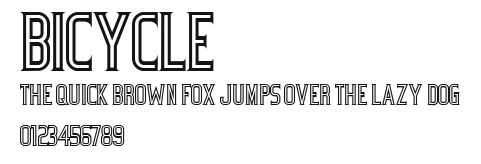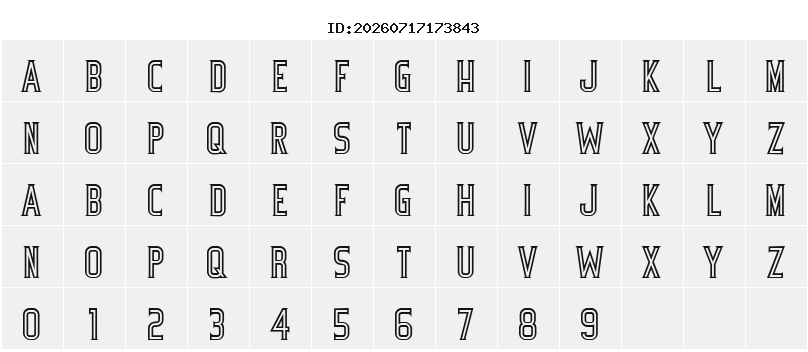
• Font Name: Bicycle
• Full Font Name: Bicycle
• PostScript Name: Bicycle
• Copyright: Bicycle by J.F.Y.Daniel Gauthier - GautFonts
About Bicycle.ttf
Bicycle.ttf is a modern, elegant sans-serif font designed for ultimate readability and visual harmony. Perfect for branding, headlines, web design, and print materials.